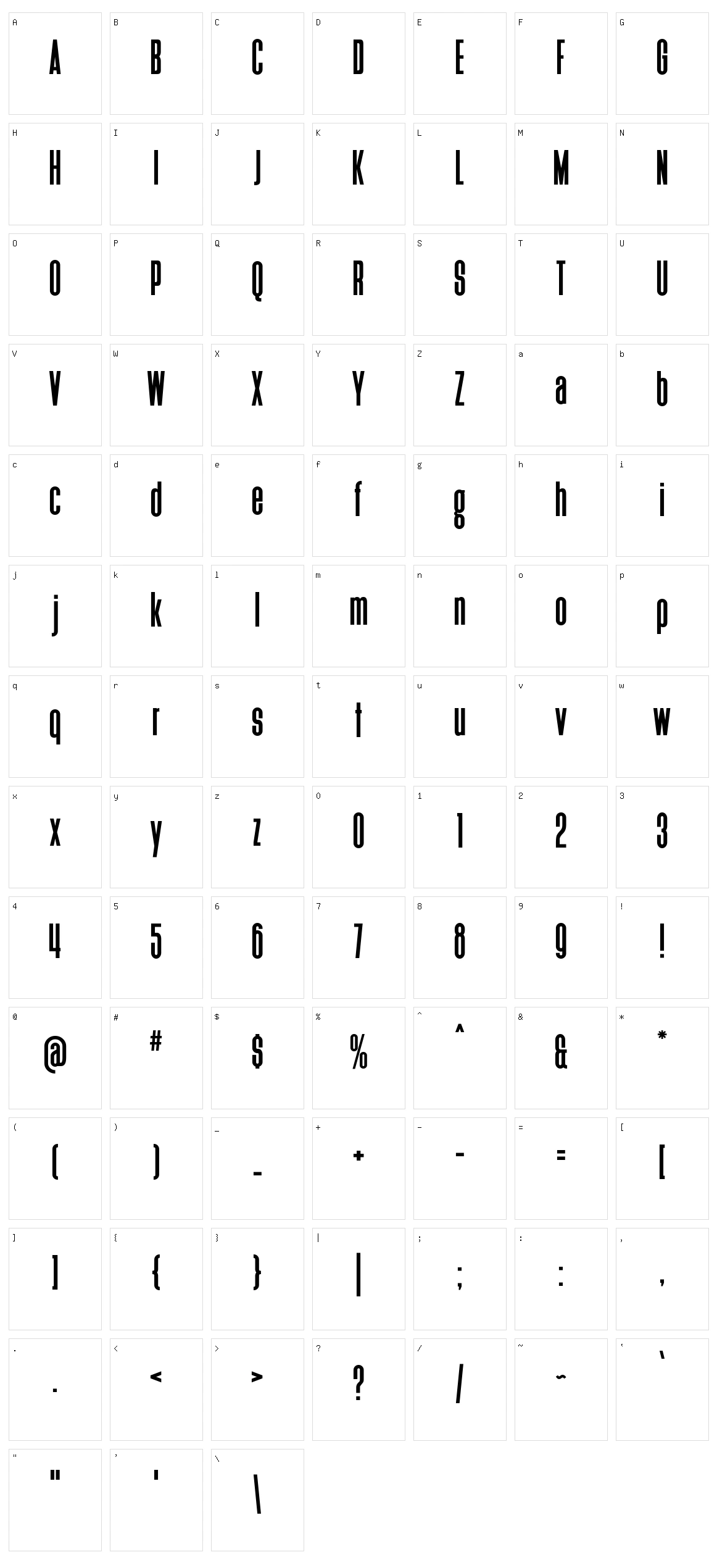
This relative of Deutschlander is about 20% taller and designed to take up more vertical space. Unlike most of our display fonts this one is designed to fill body text or accompany titles. Included are basic/extended latin Greek, Cyrillic, and many other European accents and diacritics.
OTF features include ordinals, small caps, stylistic sets, ligatures, and alternates. Squeeze lots of text into your next project such as faux movie posters, labeling, or subtitles. A demo of the regular version is included for personal use. Full version plus Italic can be purchased for $15 or by purchasing